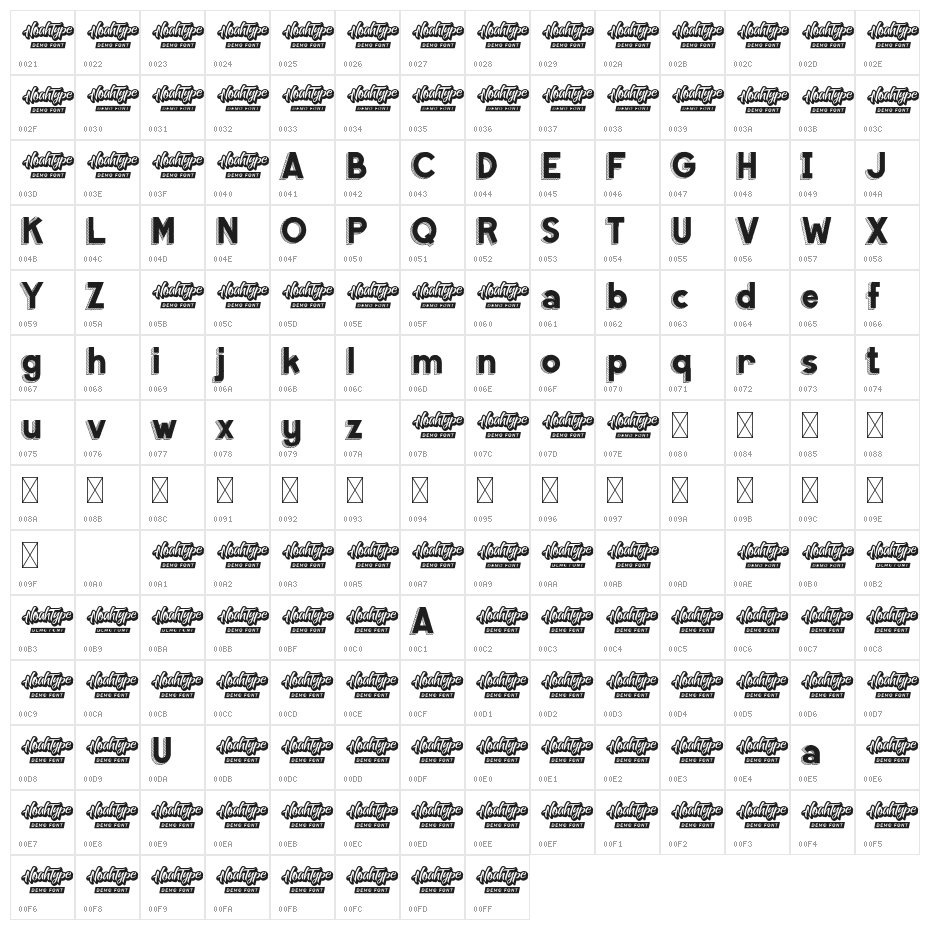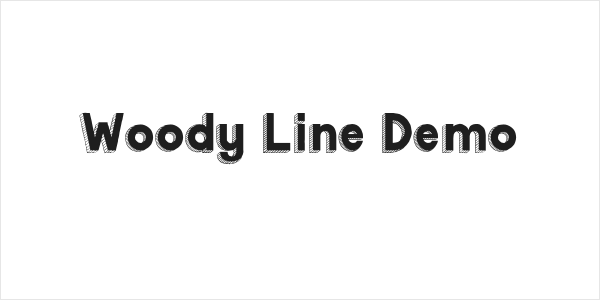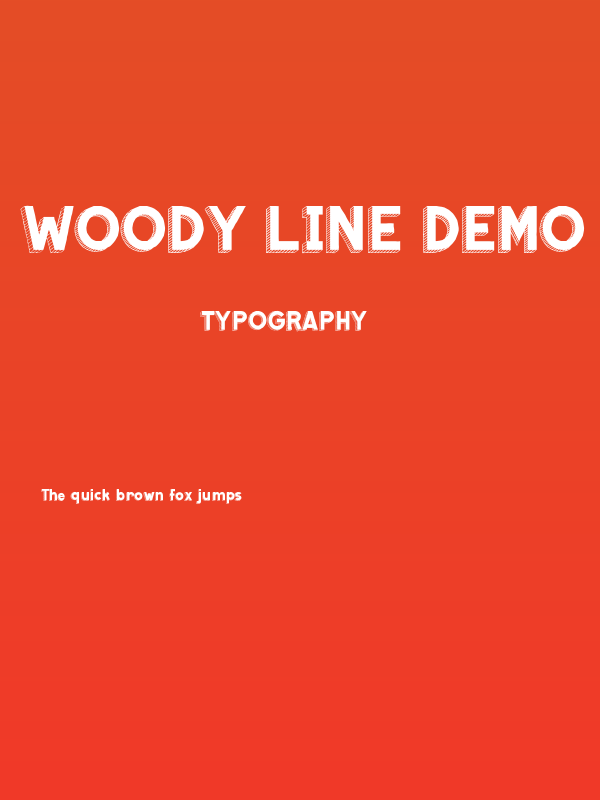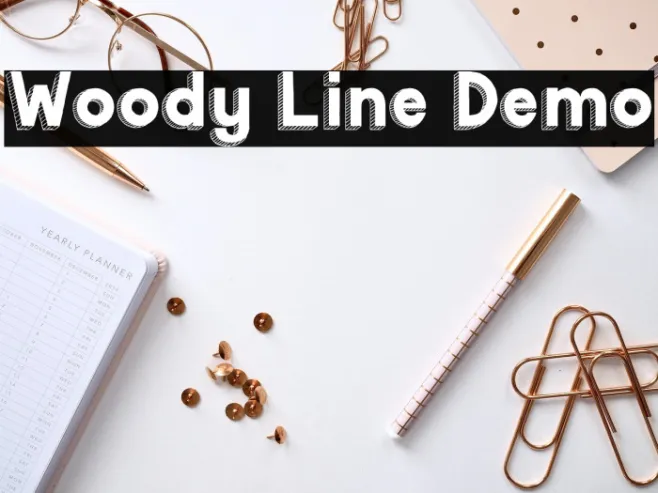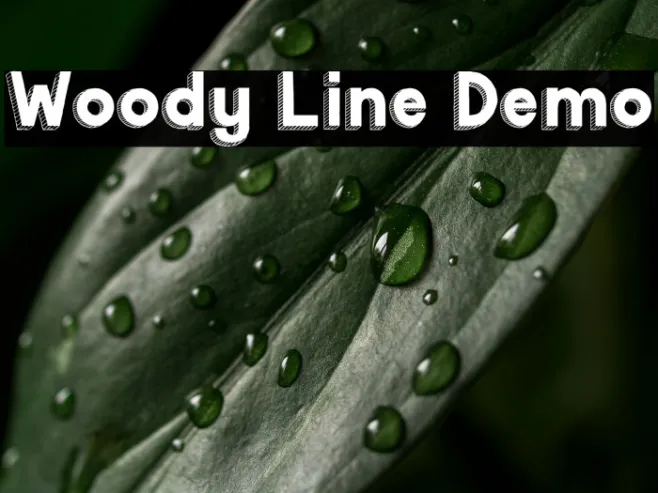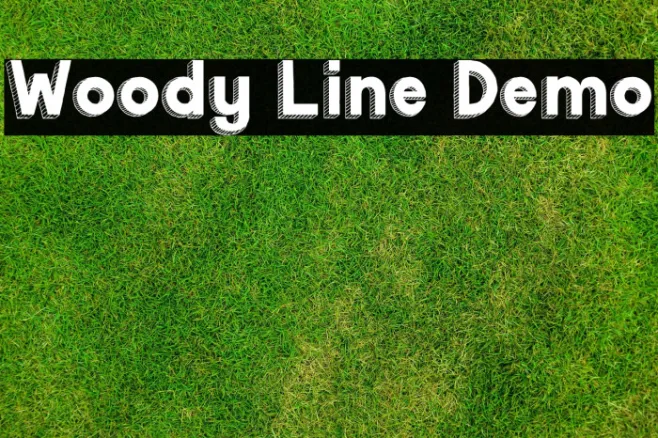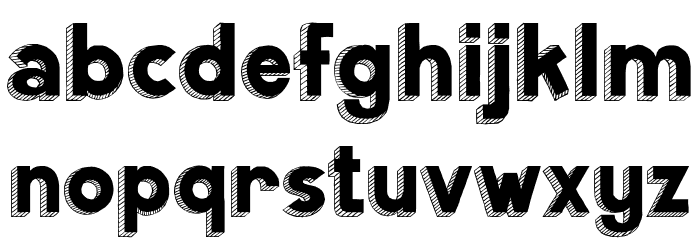
Woody Line Demo Font
Woody Line Demo Description
This font features a bold and playful design with a unique striped pattern that gives it a three-dimensional effect. The uppercase and lowercase letters are well-proportioned, with a consistent stroke width that enhances readability. The font's decorative style is eye-catching, making it suitable for creative projects. The characters have a modern yet retro vibe, combining classic typography elements with contemporary flair. The numbers and special characters maintain the same stylistic features, ensuring uniformity across all text elements.
| Proposed Projects | Ideal for posters, headlines, branding, and any project that requires a bold, eye-catching typeface. |